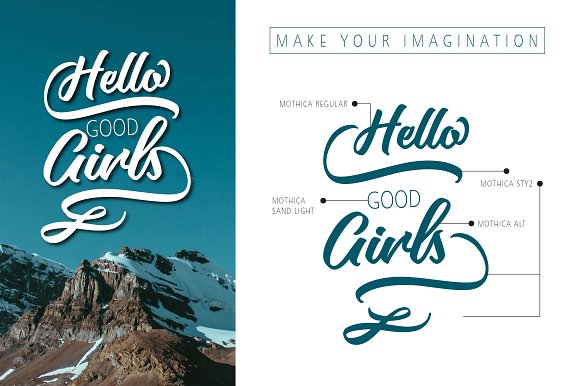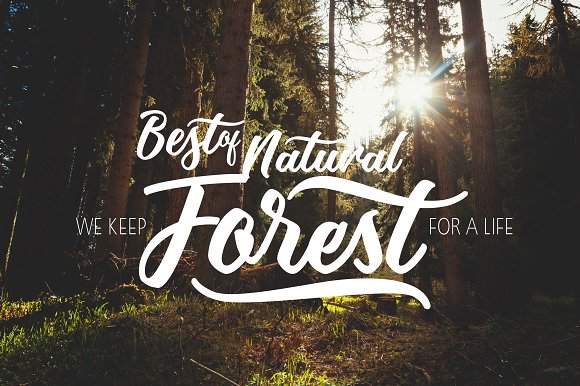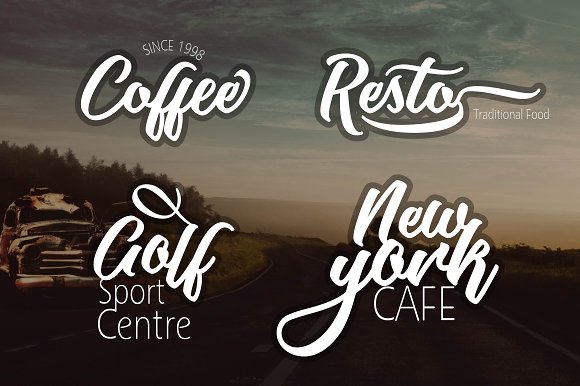
Introduction to Mothica Script Font
As a designer, there’s nothing quite like the thrill of discovering a new font that sparks creativity and takes your project to the next level. I still remember the moment I stumbled upon the Mothica Script Font, and I knew I had to have it. Its beautiful, handwritten script seemed to dance across the page, inviting me to experiment and push the boundaries of my design. Whether you’re working on a marketing campaign, a craft project, or a branding initiative, this font is sure to elevate your work.
One of the things that sets Mothica Script Font apart is its high-quality design, which makes it perfect for a wide range of creative projects. From its transparent background to its professional look and feel, this font is a valuable resource for any designer looking to add a touch of elegance to their work.
Key Features of Mothica Script Font
- Unique, elegant script font design ideal for creative projects, perfect for adding a touch of sophistication to any design resource.
- Includes a wide range of characters, including uppercase and lowercase letters, numbers, and punctuation marks, making it a comprehensive design resource.
- Perfect for use in various design applications, including digital art, graphic design, and print materials, due to its high-quality and elegant design.
Honest Review: Mothica Script Font
As a designer, I’m always on the lookout for high-quality design resources that can elevate my creative projects. Recently, I had the chance to try out the Mothica Script Font, and I must say, it’s been a game-changer.
- ✨ High-quality design: The Mothica Script Font has a beautiful, elegant feel to it. The font is highly customizable, allowing me to adjust the size, color, and spacing to fit my design needs.
- ✨ Easy to use: The font is incredibly easy to use, even for designers who are new to working with scripts. The transparent background feature makes it seamless to overlay the font on any design element.
- ⚠️ Limited font styles: While the Mothica Script Font is beautiful, it’s limited to a single style. This might not be ideal for designers who need a variety of font styles for their projects.
- ⚠️ Not suitable for large-scale projects: Due to the font’s high-quality design, it might not be the best choice for large-scale projects where speed and efficiency are crucial.
Overall, I’m thoroughly impressed with the Mothica Script Font. Its high-quality design, easy-to-use interface, and free download make it an excellent addition to any designer’s toolkit. While it may have some limitations, I believe it’s a valuable resource that can help take your creative projects to the next level.
Tips for Getting the Most Out of Mothica Script Font
Use Mothica Script Font for titles, headings, and quotes to add a touch of elegance to your design. Experiment with different font sizes and colors to create a visually appealing effect. You can also use Mothica Script Font in conjunction with other fonts to create a unique and creative look.